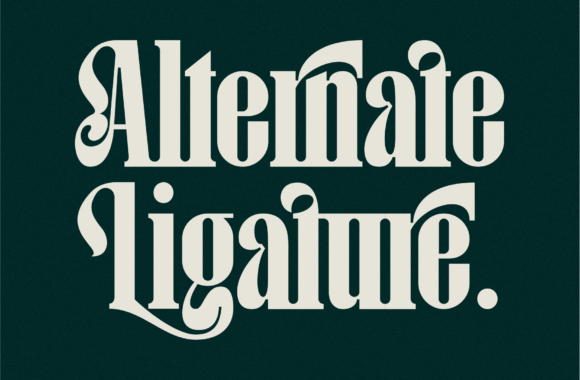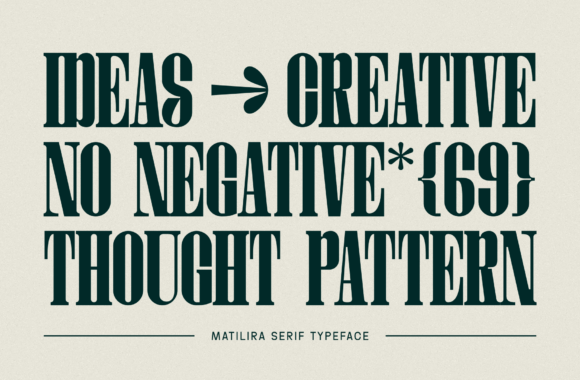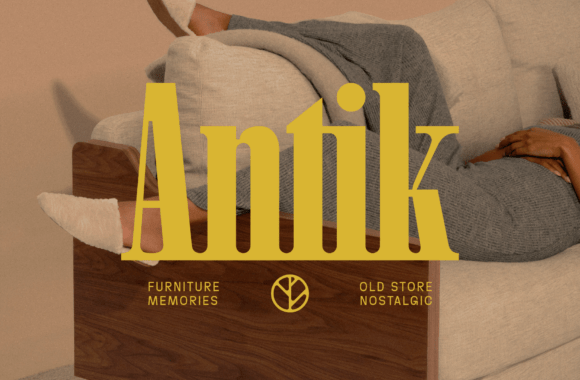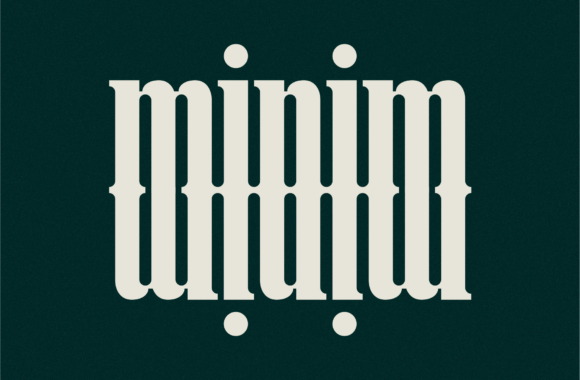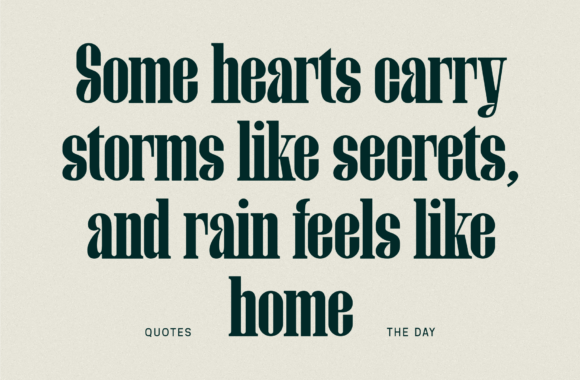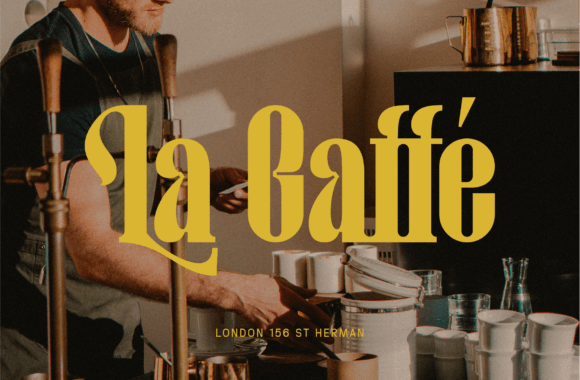
Introduction to Matilira Font
Matilira is a decorative serif typeface known for its bold structure, artistic flair, and vintage charm.
It features strong vertical strokes, unique ligatures, and playful alternates, making it stand out in display use The elegant curves and ornamental details lend a sense of sophistication and creativity, perfect for branding that aims to make a statement.
Key Features of Matilira Font